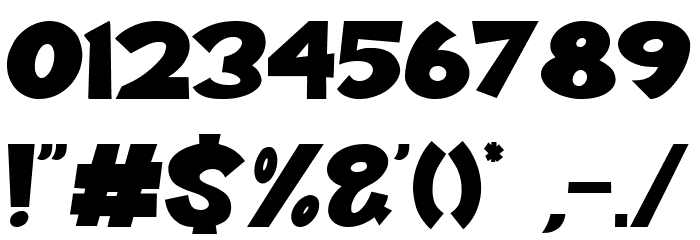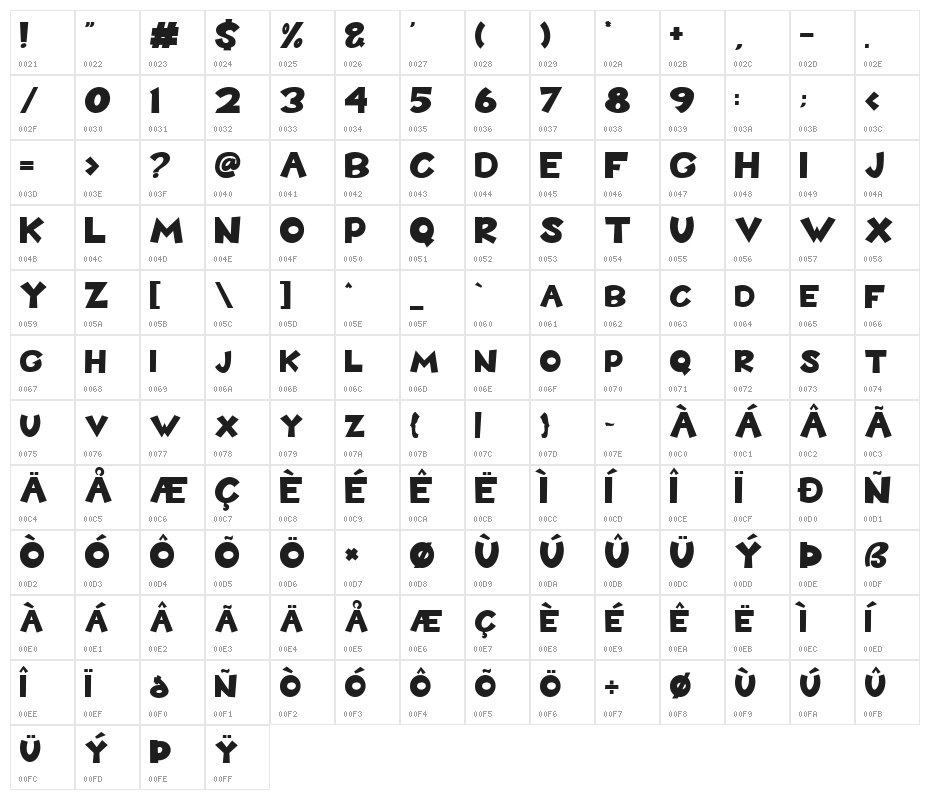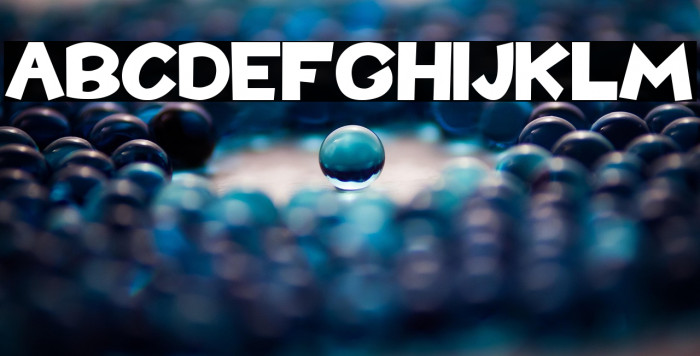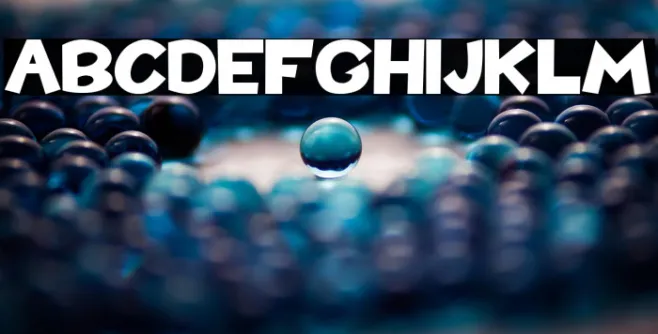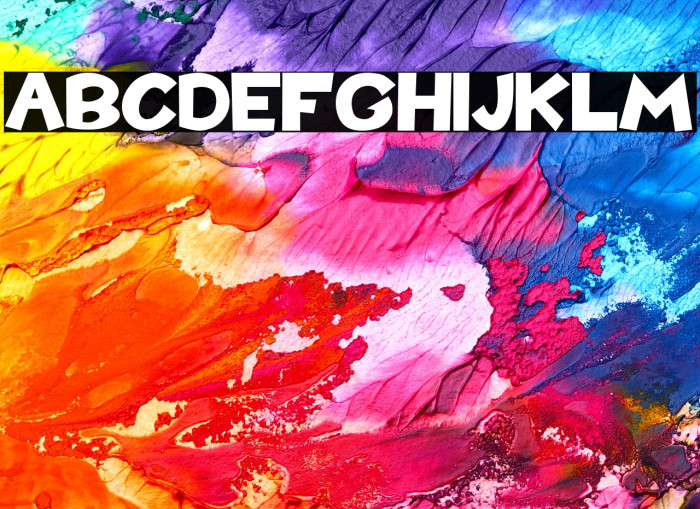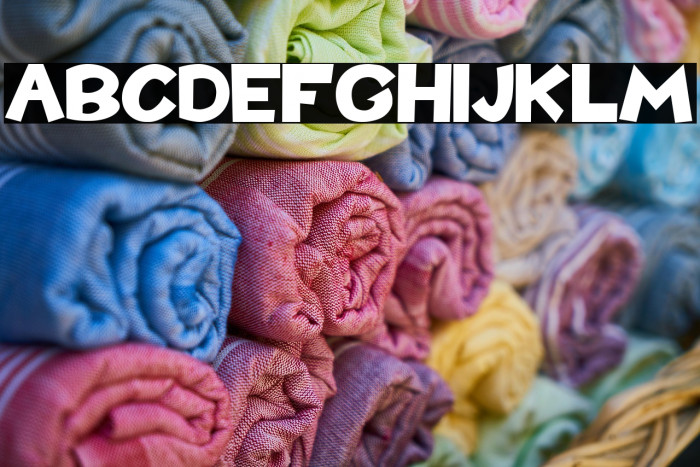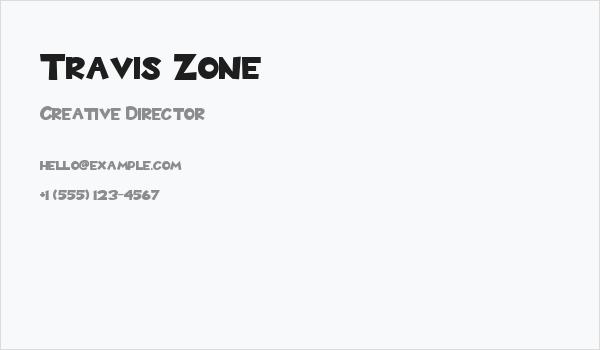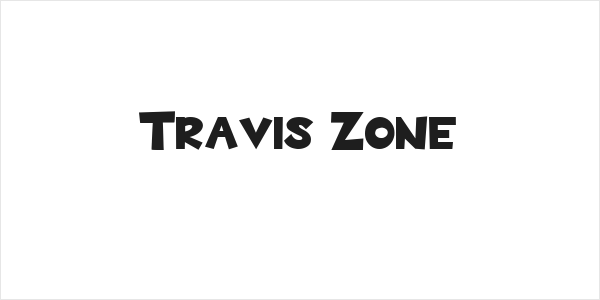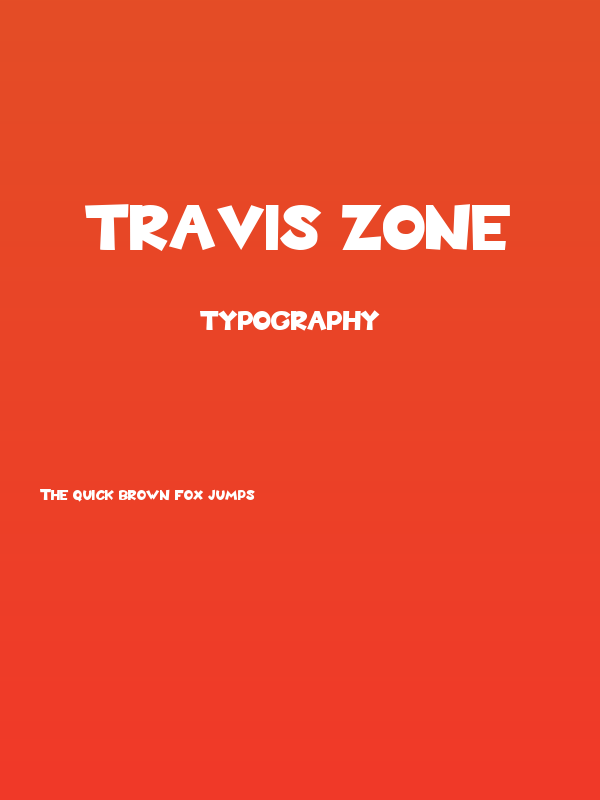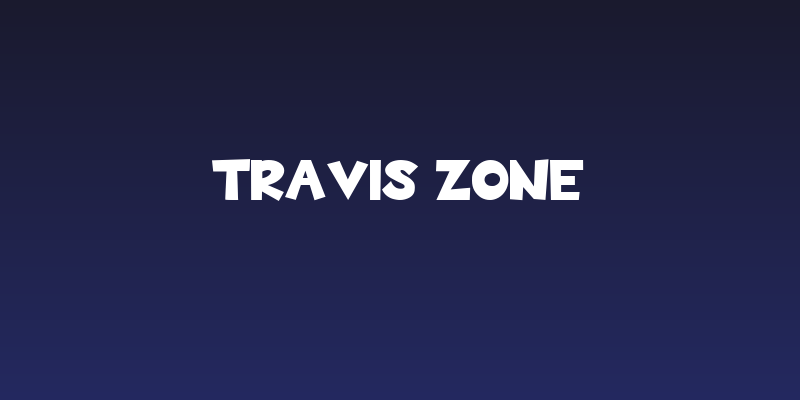
Travis Zone Font
Travis Zone Description
This font features bold, angular characters with a playful and dynamic style. The uppercase letters are particularly striking, with sharp edges and a slightly condensed form that gives them a strong presence. The lowercase letters maintain the same boldness, ensuring consistency across the typeface. Numbers and special characters are equally bold, making them stand out. The overall design is modern and eye-catching, suitable for projects that require a strong visual impact.
Proposed ProjectsIdeal for posters, headlines, branding, and any project needing a bold, impactful typeface.